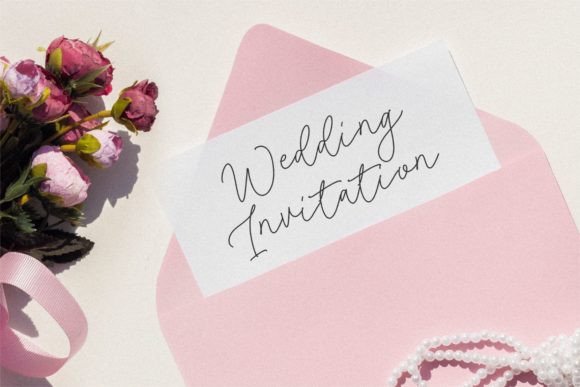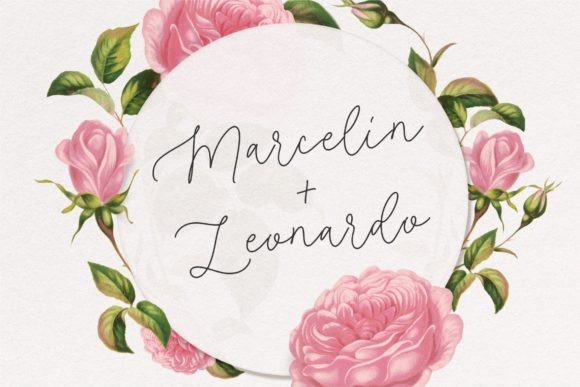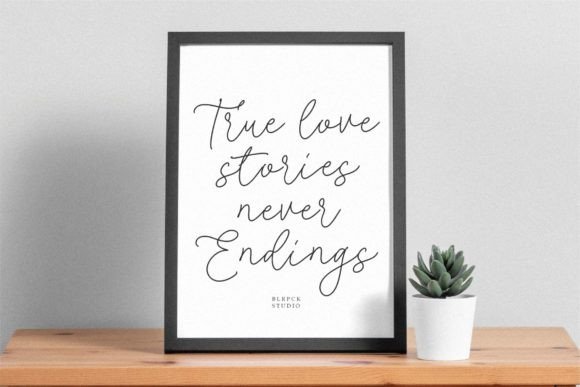
Introduction to Roseline Font
Roseline is a monoline handwritten font that’s clean, elegant and perfect for a range of design projects.
With its smooth, effortless lines and understated sophistication, this font is the perfect choice for those who want a modern look that’s still timeless in its appeal .
Key Features of Roseline Font
Why Choose Roseline Font?
Roseline Font offers exceptional quality and versatility, making it a valuable addition to your design toolkit. Whether you’re creating for personal projects or commercial use, Roseline Font delivers professional results.